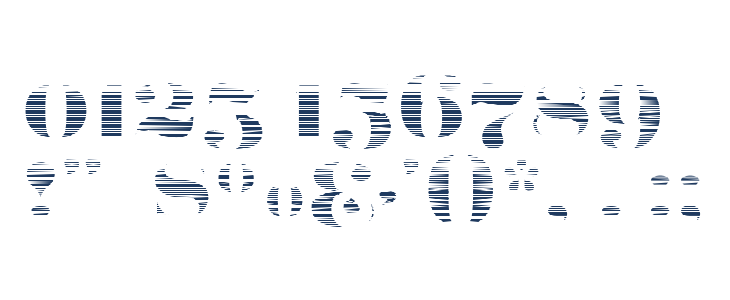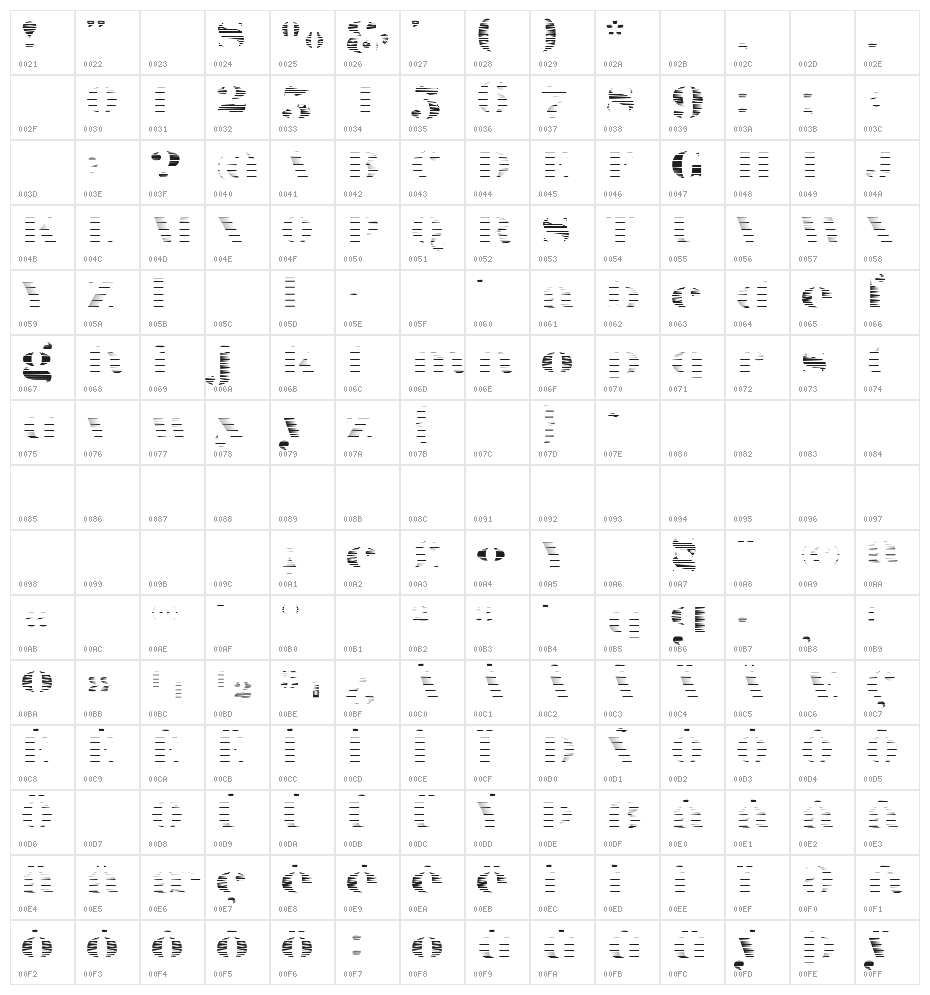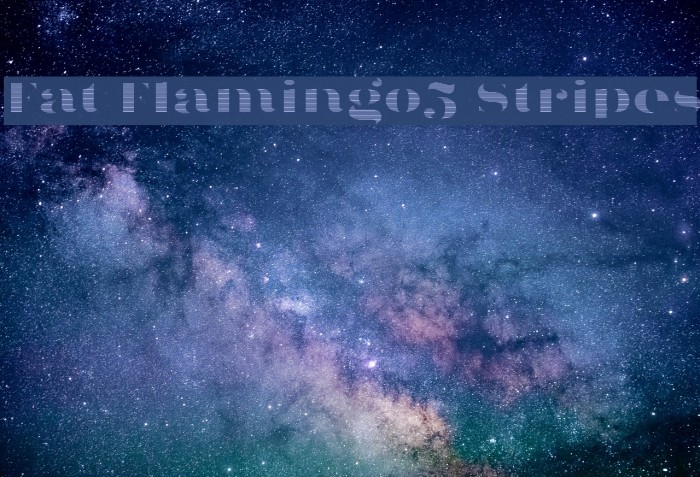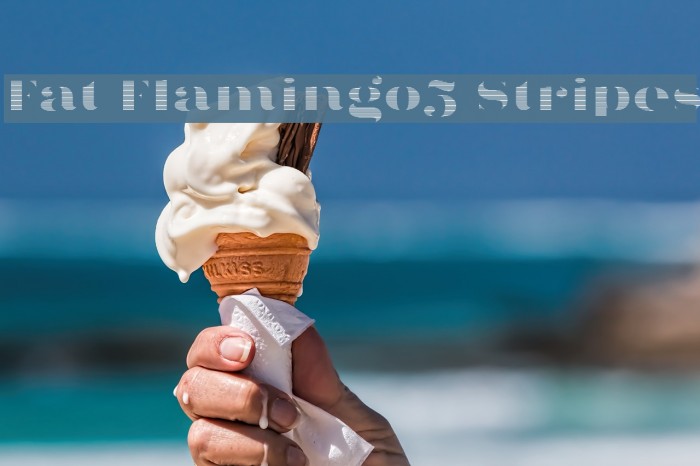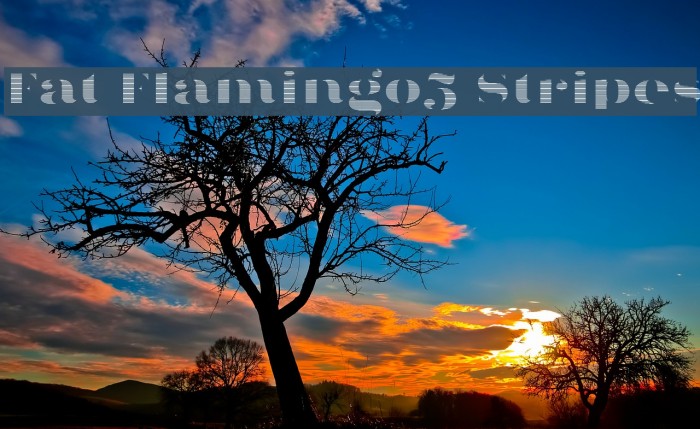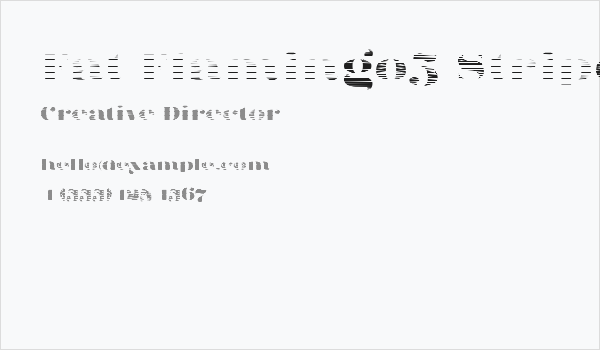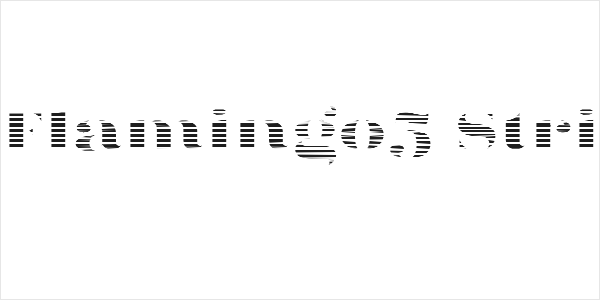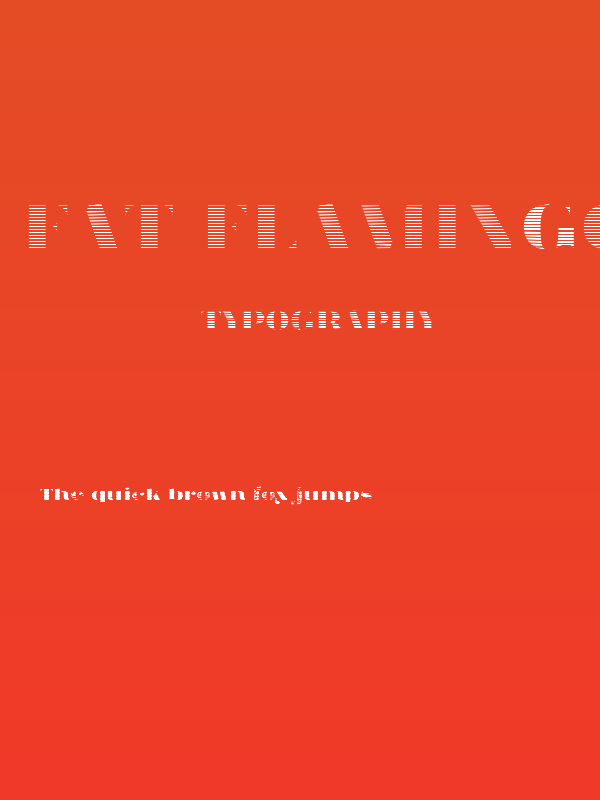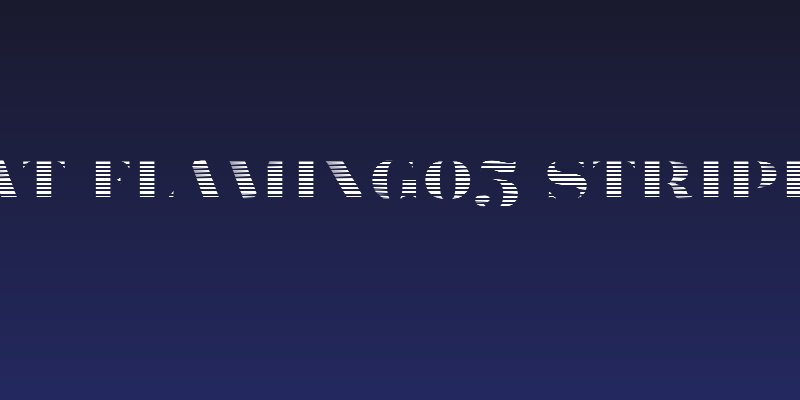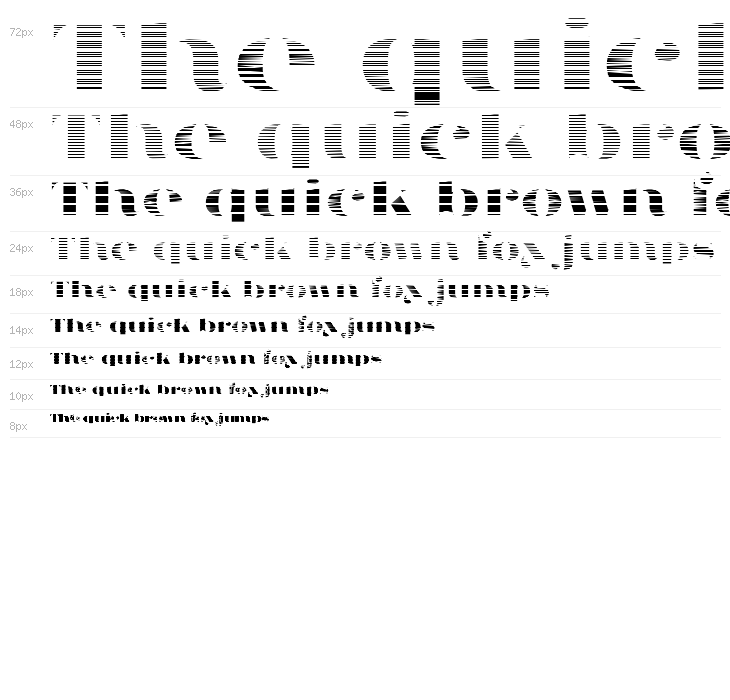
Fat Flamingo5 Stripes Font
Fat Flamingo5 Stripes Description
This font features a unique striped pattern across each character, creating a visually striking effect. The letters are bold and have a modern, decorative style with a playful twist. The stripes run horizontally, giving the font a dynamic and energetic feel. The uppercase and lowercase letters maintain a consistent design, while the numerals and special characters are equally distinctive. This font's bold appearance makes it ideal for attention-grabbing designs.
| Proposed Projects | Ideal for posters, branding, and creative projects that require a bold statement. |